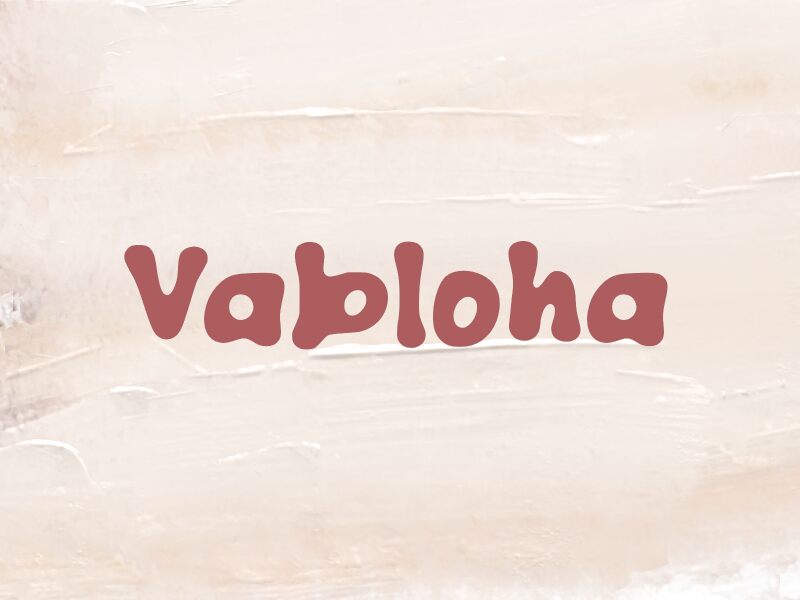
Vabloha
Vabloha font by wep is a free groovy display typeface that looks like it’s been poured onto the page in thick, inky blobs. The letters swell and stretch with a playful wobble, yet keep a steady rhythm so words feel bold and readable, not chaotic. It has a bouncy, almost rubbery texture that instantly pulls the eye, giving even short titles a loud, friendly voice.
Using Vabloha, you can give instant personality to party posters, kids’ branding, stickers, social graphics, YouTube thumbnails, and funky packaging. This free font really shines at large sizes where its chunky curves and soft edges can breathe. Pair it with a clean, light sans serif for body text to keep your layouts fun but balanced.